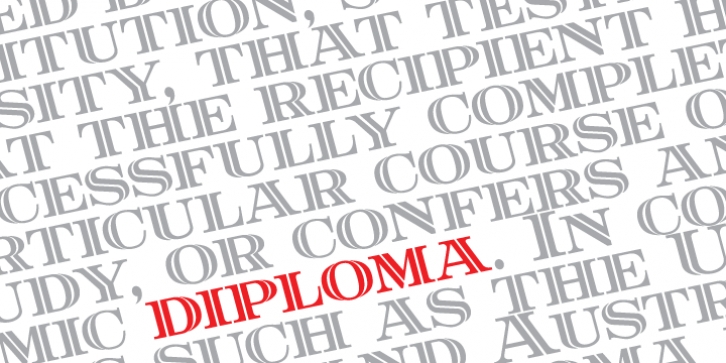
Diploma was designed by Hans van Maanen and published by Canada Type. Diploma contains 1 style.
Diploma is a revival of Diplomat, a metal type made by the in-house team of Ludwig & Mayer and first published in 1964.
Strong elegant caps with confident serifs make Diploma a great addition to the toolbox of poster and book cover designers. Diploma's character set covers a large range of codepages, including support for Baltic, Central and Eastern European languages, as well as Turkish and Welsh. Comes in all popular font formats.